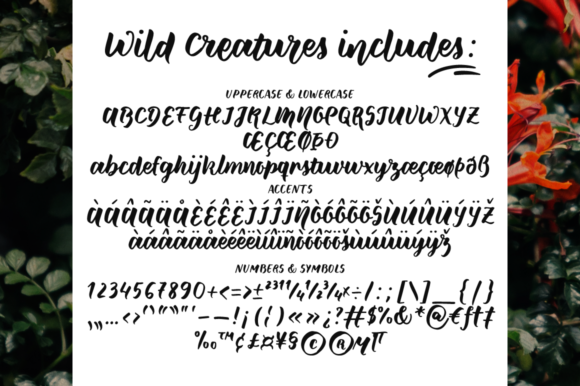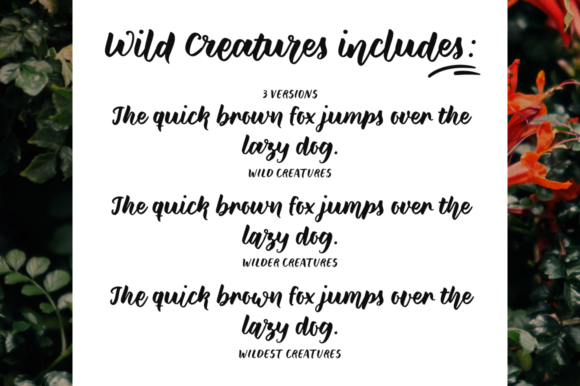
Wild Creatures Font
db-ku.com - Script & Handwritten -- Wild Creatures is a bold brushed script font, coming in three variations, with ligatures, an all caps alternate set, as well as bonus swashes.